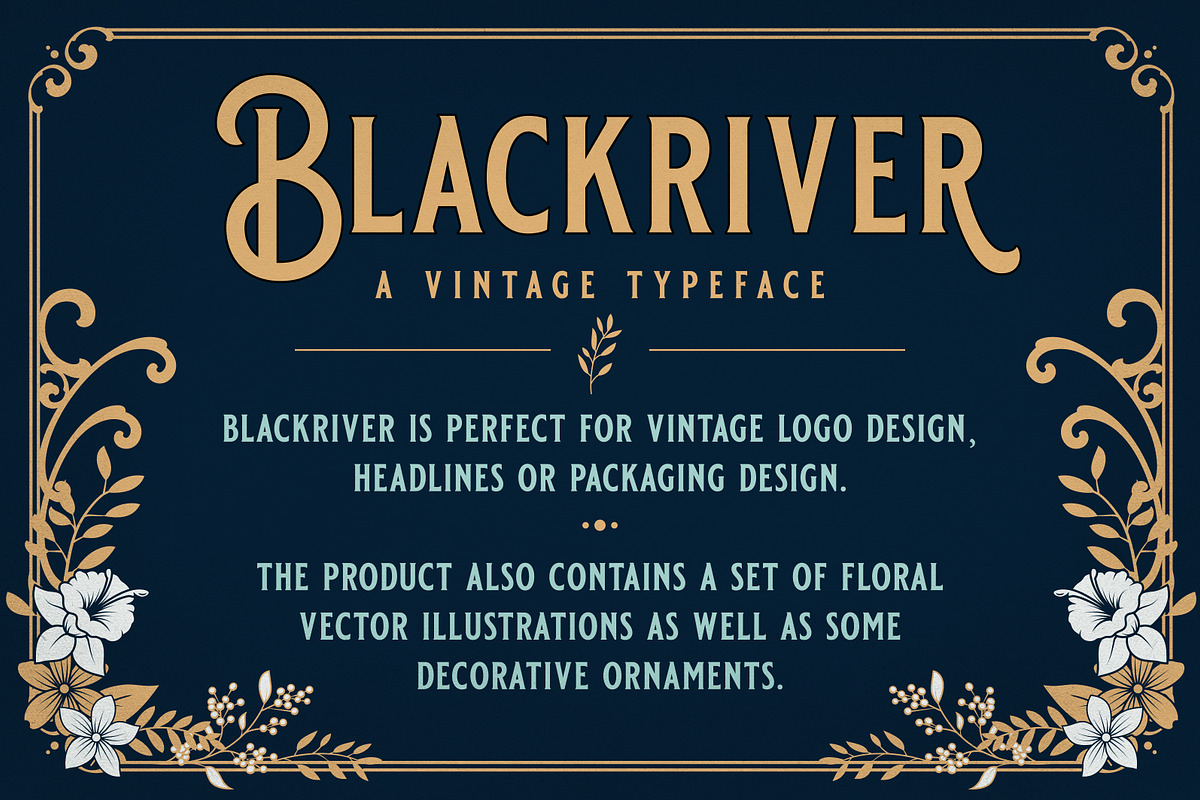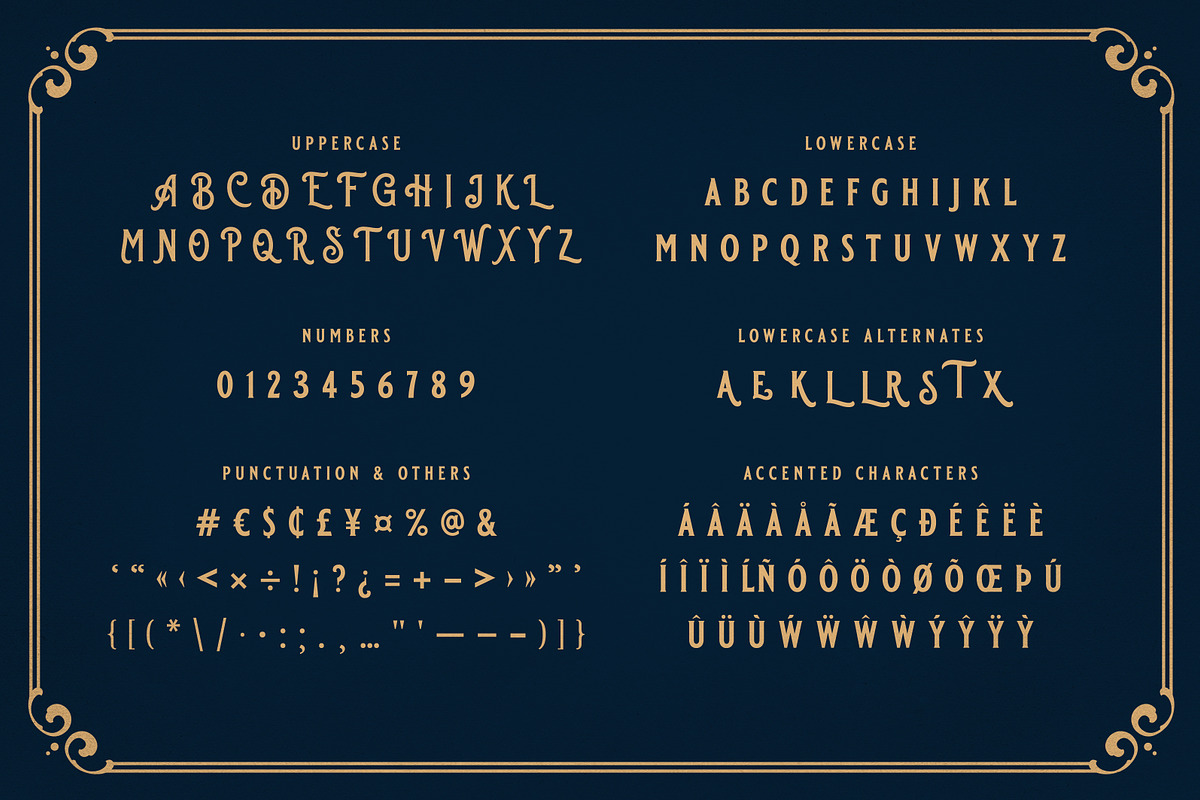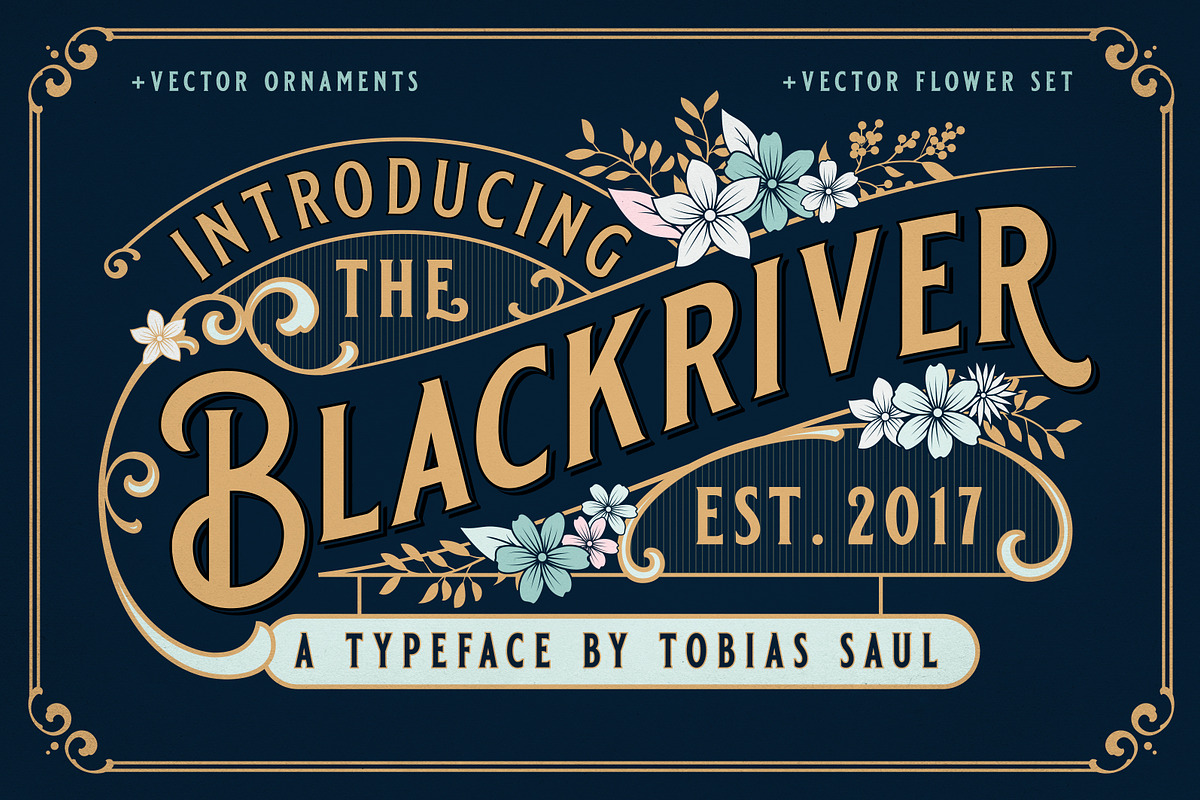
Blackriver Font + Ornaments
Blackriver is a Vintage Font inspired by vintage packaging and advertising from the early 20th century. It is perfect for vintage logo design, headlines or packaging design. The product also includes a set of floral vector illustrations as well as some decorative ornaments. This combination allows you to easily build beautiful vintage designs in a short time.
Character set A-Z with special uppercase letters
Accented Characters (West Europe)